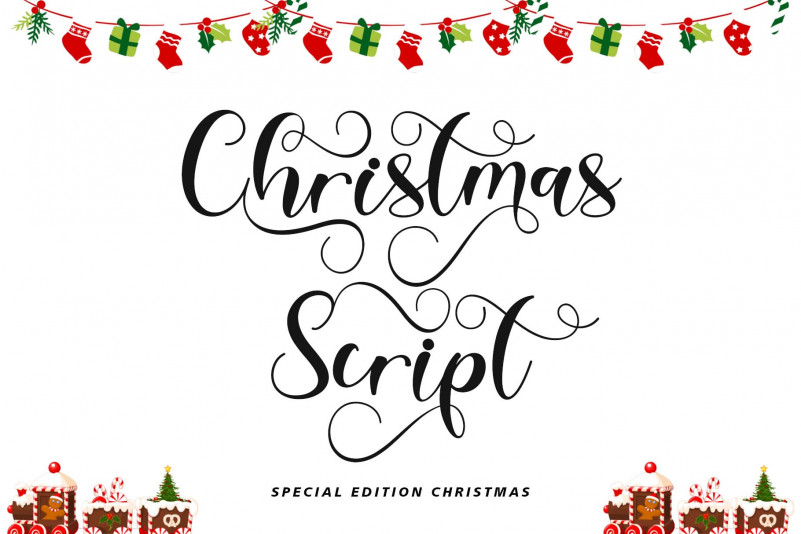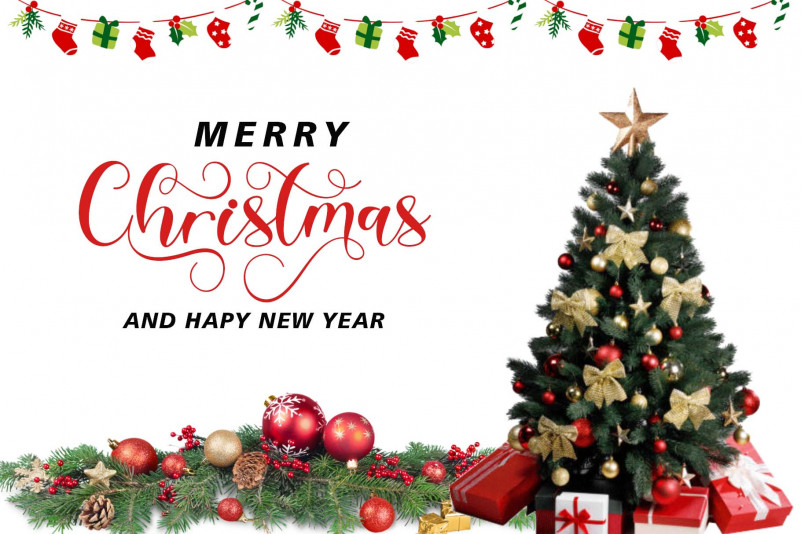
Christmas Script Font
“Christmas Script Font” is a Christmas edition script font. This font is equipped with uppercase letters, lowercase letters, ligatures, numerals, punctuations, multilingual support, uppercase alternates and also lowercase alternates. This font is perfect for celebrating your Christmas.